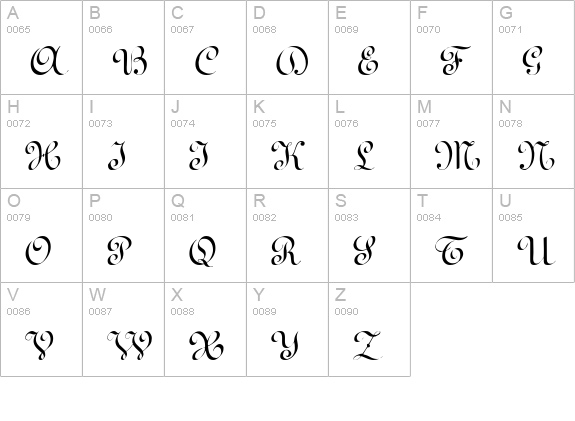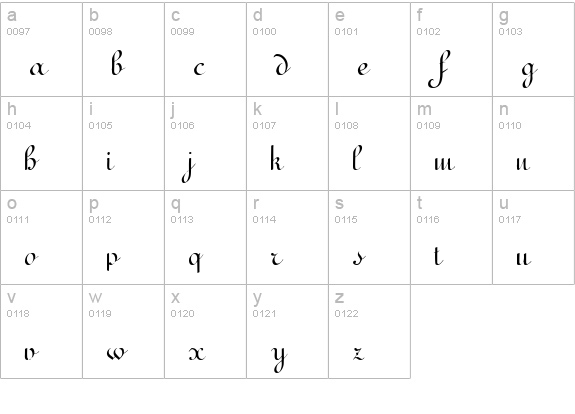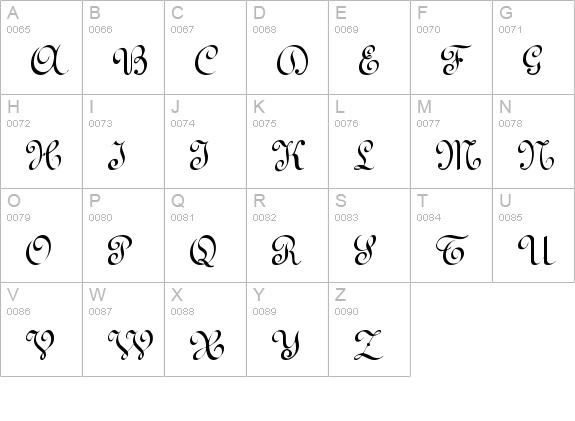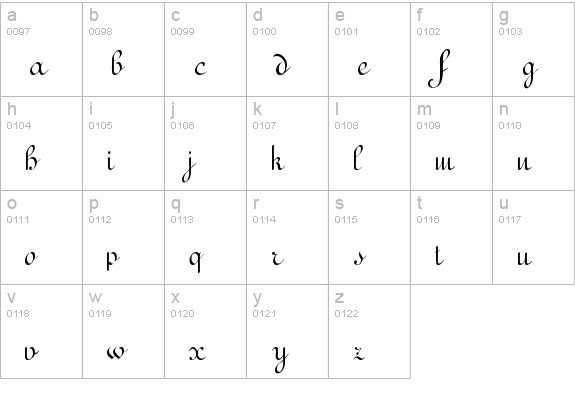
Terpsichore Font Details
Terpsichore font is a visually stunning typeface that embodies elegance and sophistication. With its delicate curves and graceful lines, this font captures the essence of beauty and grace. It is the perfect choice for designers and creatives who want to add a touch of refinement to their projects. What sets Terpsichore font apart is not just its captivating design, but also the fact that it is available for free. Yes, you read that right! Terpsichore font can be freely downloaded at FontsMarket.com, making it accessible to anyone who seeks to elevate their typographic creations without breaking the bank. Whether you are designing a wedding invitation, a logo for a high-end brand, or even a magazine layout, Terpsichore font will effortlessly elevate your work to new heights. Its versatility allows it to be used in various contexts, from formal to casual, and it never fails to make a lasting impression. The attention to detail in Terpsichore font is truly remarkable. Each letter has been meticulously crafted, ensuring a harmonious balance between elegance and readability. The thin strokes exude a sense of delicacy, while the subtle curves add a touch of femininity. It is a font that demands attention and exudes confidence. With Terpsichore font, you can effortlessly create stunning typography that stands out from the crowd. Its timeless appeal and captivating design ensure that your work will remain relevant and eye-catching for years to come. So why wait? Visit FontsMarket.com today and download Terpsichore font for free, and let your creativity flow with this exceptional typeface.